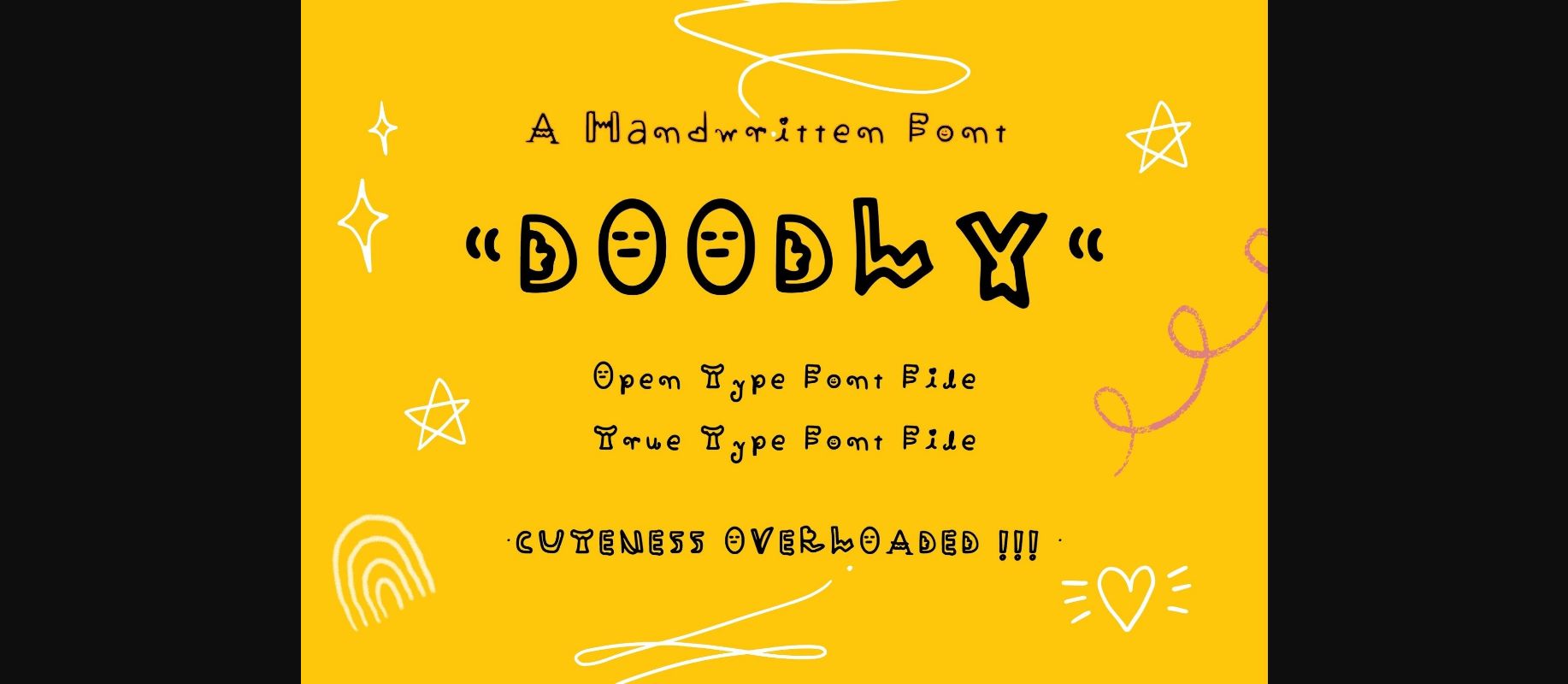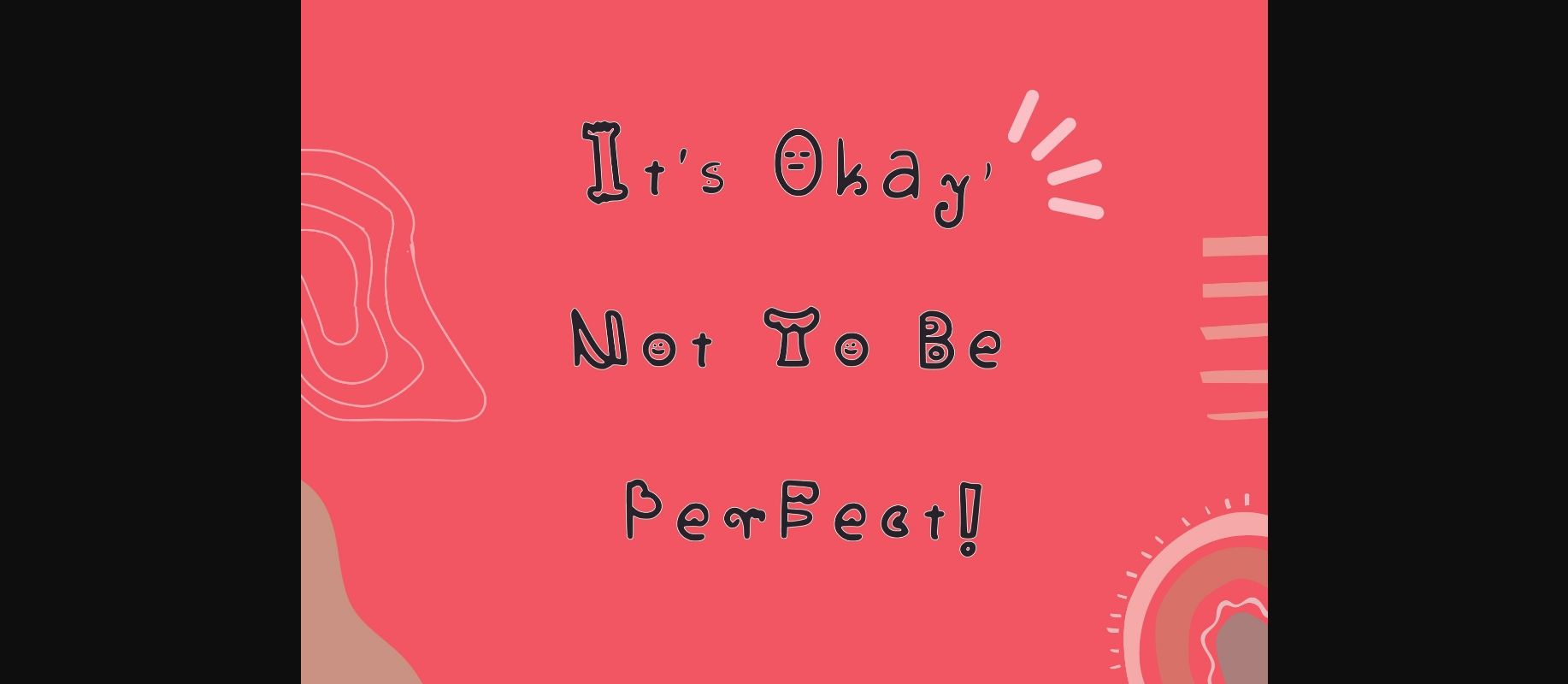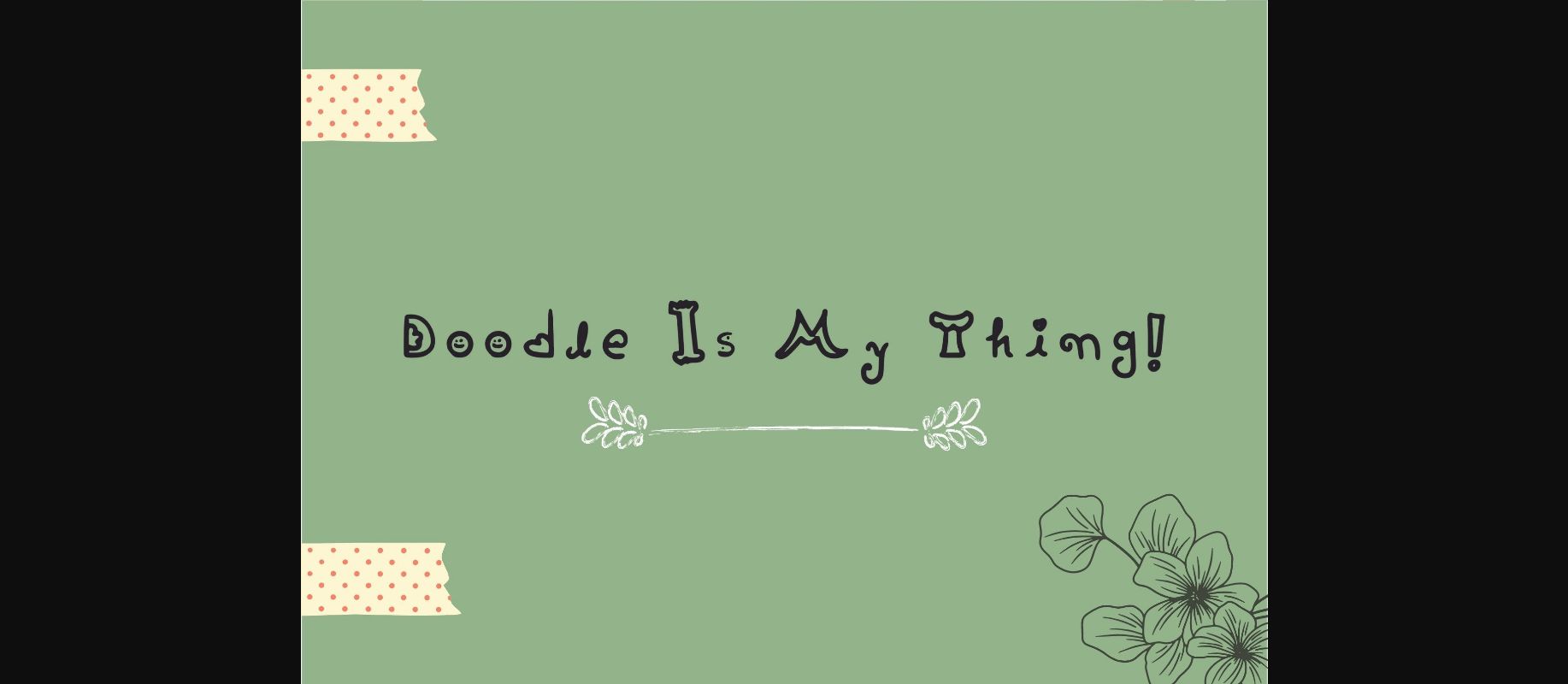
About Doodly Font
Doodly is an informal, cool, cute, and sweet decorative font. It can be used for back-to-school projects, Christmas, Winter, Summer, Autumn, Spring, Easter, Valentine, Halloween, Thanksgiving, St. Patrick, Earth Day, New Year, Bedroom, Kitchen, Bathroom, Living Room, Garden, Fruits, Vegetables, etc.
Moreover, you can create quotes, brands, logos, greeting cards, invitations, stationery designs, children’s designs, t-shirts, packaging designs, posters, typographic designs, papercrafts, even digital crafts!
For crafters as well as graphic artists, this font is ideal. It works with tools such as Photoshop and any design studio. Put it on your next project to make it pop!
Moreover, you can create quotes, brands, logos, greeting cards, invitations, stationery designs, children’s designs, t-shirts, packaging designs, posters, typographic designs, papercrafts, even digital crafts!
For crafters as well as graphic artists, this font is ideal. It works with tools such as Photoshop and any design studio. Put it on your next project to make it pop!